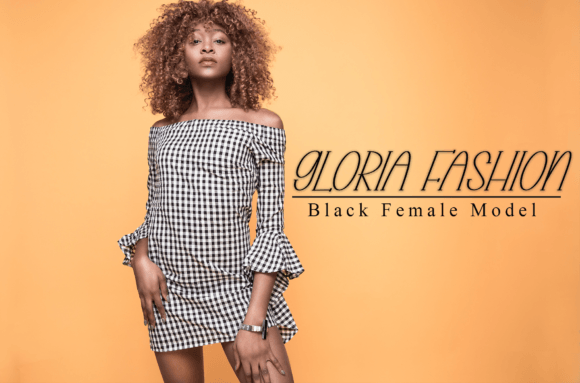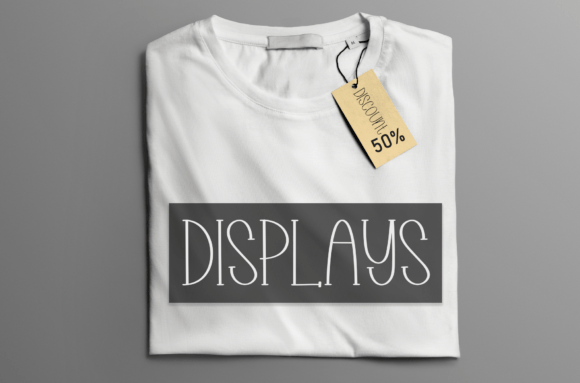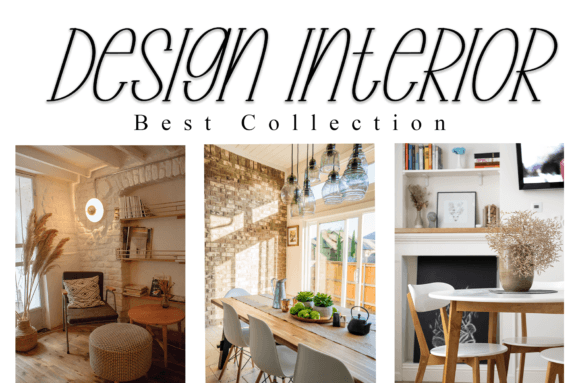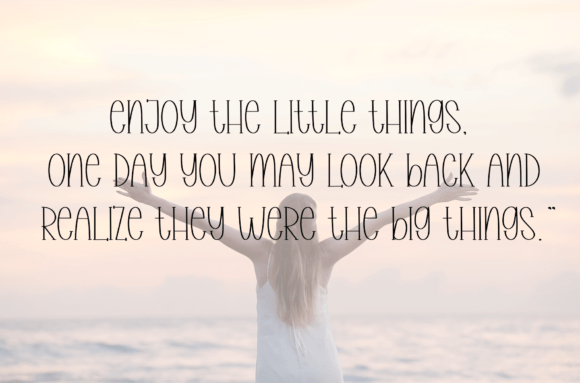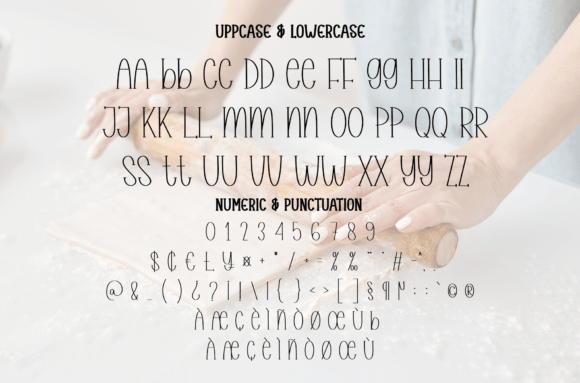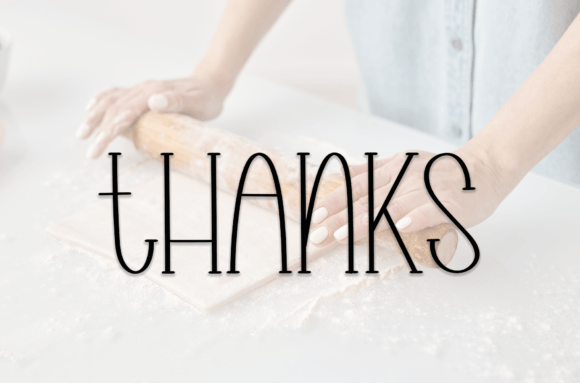
Introduction to Pastry Dough Font Font
Fonts play a crucial role in design, and the Pastry Dough Font font is a typeface that brings both character and versatility to any project. Whether you’re working on a branding project, a website, or a print design, the Pastry Dough Font font offers a unique style that can elevate your work.
Pastry Dough is a sweet and friendly handwritten font.
Fresh and neat, this font is ideal for writing wedding invitations, cards, or any other design that might need a fun touch .
Key Features of Pastry Dough Font Font
Why Choose Pastry Dough Font Font?
The Pastry Dough Font font is more than just a typeface – it’s a design tool that helps you communicate your message with style and clarity. Its unique character set and versatile design make it suitable for a wide range of applications, from elegant invitations to bold headlines.
With its carefully crafted letterforms and balanced proportions, the Pastry Dough Font font ensures readability and visual appeal across all mediums.
What makes Pastry Dough Font font special?
The Pastry Dough Font font stands out with its unique design, exceptional readability, and versatility across various design applications.